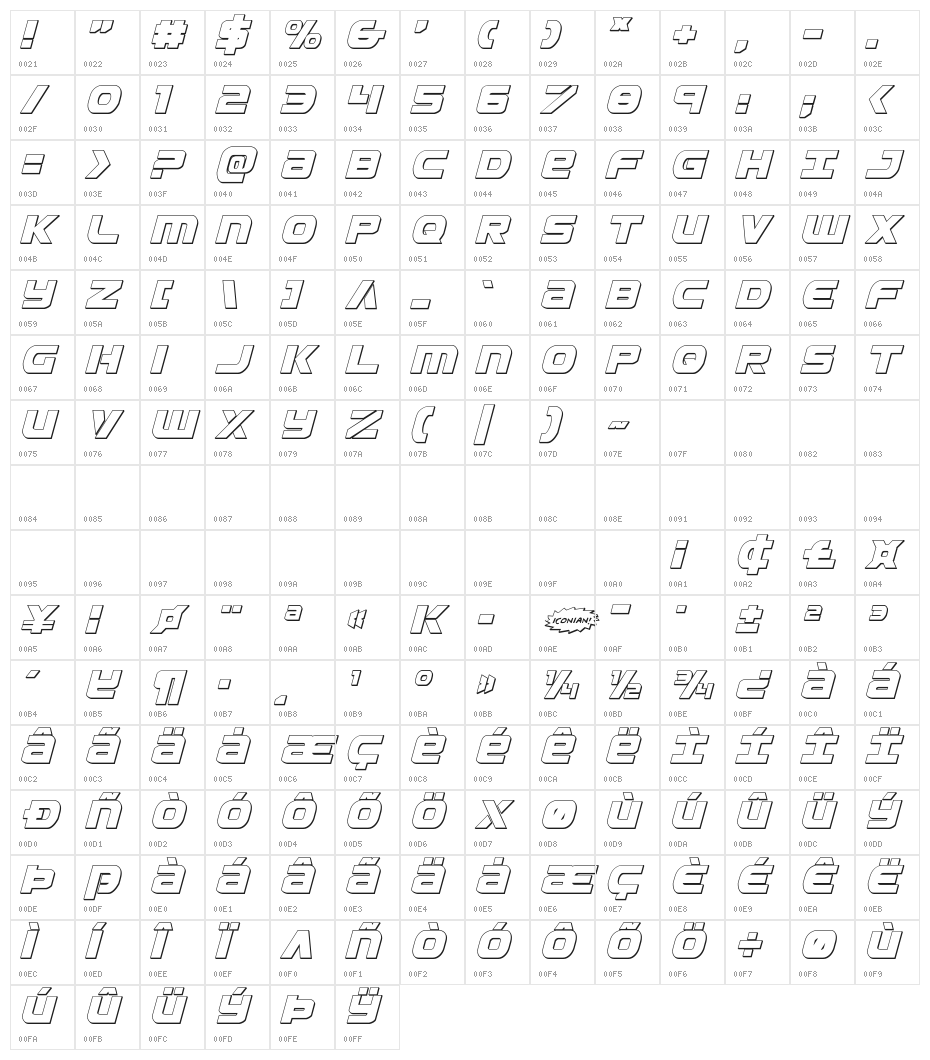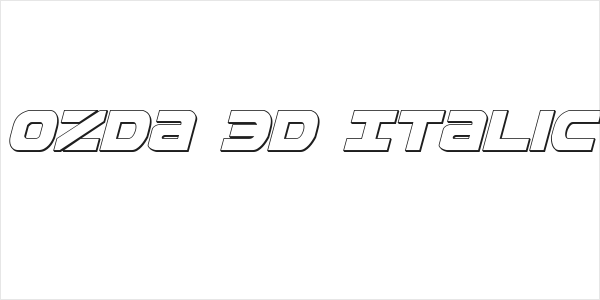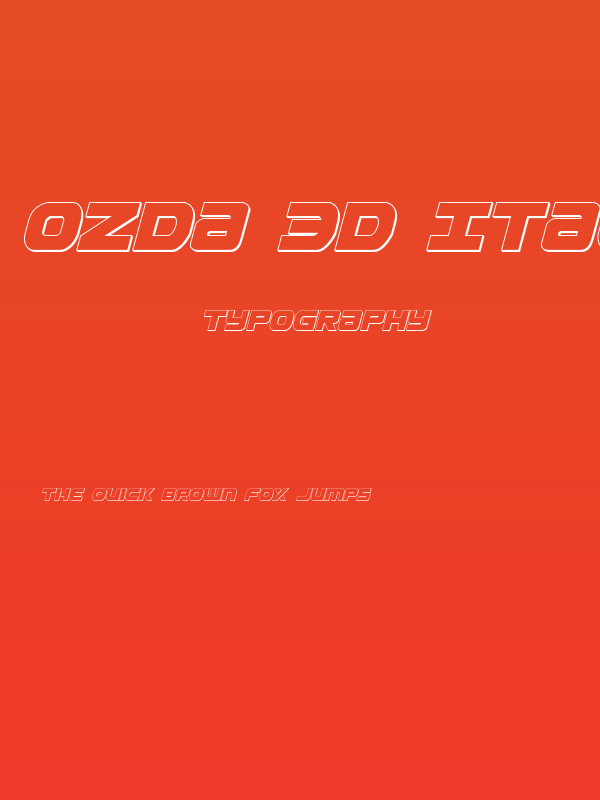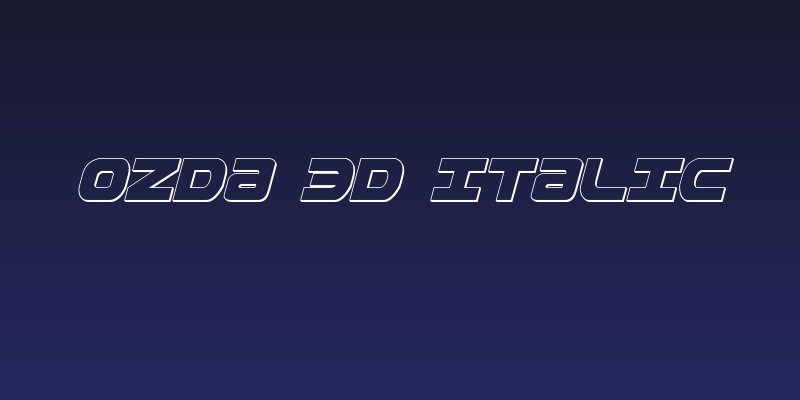
Ozda 3D Italic Font
Ozda 3D Italic Description
This font features a bold, futuristic design with a 3D effect that gives each character a sense of depth and dimension. The letters are italicized, adding a dynamic and forward-moving feel. The geometric shapes and clean lines contribute to a modern aesthetic, while the hollow interior of each character enhances the 3D illusion. The font maintains a consistent stroke width, providing a uniform appearance across all characters. Its unique style makes it stand out, making it suitable for eye-catching designs.
| Proposed Projects | Ideal for sci-fi themed projects, video game titles, technology branding, and modern poster designs. |